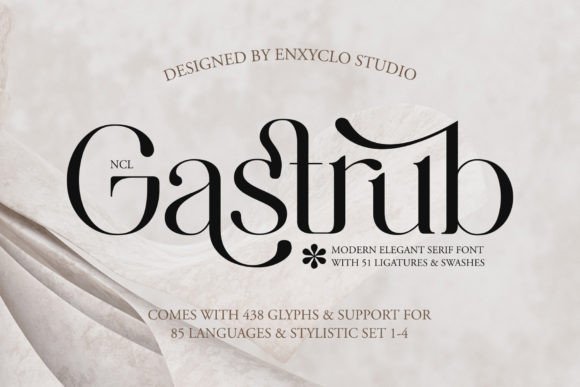
Gastrub Font: Elevate Your Creative Projects with Elegance and Sophistication
In the world of typography, a well-designed font can make all the difference in bringing your creative ideas to life. Introducing Gastrub Font, a modern elegant ligature and swashes font that is sure to become a true favorite among designers and creative enthusiasts alike. Masterfully designed to elevate your projects to the highest level, Gastrub Font is perfect for a wide range of applications, from weddings and headlines to billboards and branding.
Key Features of Gastrub Font
- Modern Elegant Design: Gastrub Font boasts a sleek and sophisticated design that is sure to impress. Its elegant lines and curves make it perfect for projects that require a touch of luxury and refinement.
- Ligatures and Swashes: This font features beautiful ligatures and swashes that add a touch of elegance to any project. With Gastrub Font, you can create stunning headlines, titles, and logos that stand out from the rest.
- Versatile: Whether you’re working on a wedding invitation, a billboard, or a website, Gastrub Font is the perfect choice. Its versatility makes it suitable for a wide range of applications and projects.
10 Creative Ways to Use Gastrub Font
- Wedding Invitations: Create stunning wedding invitations that set the tone for the big day. Gastrub Font’s elegant design and ligatures make it perfect for wedding stationery.
- Headlines and Titles: Use Gastrub Font to create eye-catching headlines and titles for your blog posts, articles, and website content.
- Billboards and Posters: Make a statement with Gastrub Font on billboards and posters. Its bold and elegant design is sure to grab attention.
- Magazine and Newspaper Articles: Add a touch of sophistication to your magazine and newspaper articles with Gastrub Font.
- Website Design: Use Gastrub Font to create a stunning website that reflects your brand’s elegance and sophistication.
- Branding and Logos: Create a memorable brand identity with Gastrub Font. Its unique design and ligatures make it perfect for logos and branding materials.
- Social Media Graphics: Elevate your social media graphics with Gastrub Font. Create stunning Facebook and Twitter headers, Instagram stories, and more.
- Packaging Design: Use Gastrub Font to create eye-catching packaging design that stands out on store shelves.
- Advertising: Create effective ads with Gastrub Font. Its elegant design and ligatures make it perfect for print and digital ads.
- Signage: Use Gastrub Font to create stunning signage that grabs attention. Its bold and elegant design makes it perfect for store signs, banners, and more.
Why Choose Gastrub Font?
Gastrub Font offers a range of benefits that make it an excellent choice for designers and creative enthusiasts. Here are just a few reasons why:
- Elegant Design: Gastrub Font’s modern elegant design makes it perfect for projects that require a touch of sophistication and luxury.
- Versatility: This font is versatile and can be used for a wide range of applications and projects.
- High-Quality: This font is designed to deliver high-quality results, even at large point sizes.
Tips and Tricks for Using Gastrub Font
Here are a few tips and tricks to help you get the most out of Gastrub Font:
- Experiment with Ligatures: Don’t be afraid to experiment with the ligatures and swashes in Gastrub Font. They can add a touch of elegance to any project.
- Use it in Large Point Sizes: Gastrub Font is designed to be used in large point sizes, so don’t be afraid to go big.
- Pair it with Other Fonts: Try pairing Gastrub Font with other fonts to create a unique and interesting look.
- Pay Attention to Kerning: Make sure to pay attention to kerning when using Gastrub Font. This will ensure that your text looks professional and polished.
In conclusion, Gastrub Font is a modern elegant ligature and swashes font that is sure to elevate your creative projects to the highest level. Its elegant design, versatility, and ease of use make it perfect for a wide range of applications and projects. Whether you’re a designer or a creative enthusiast, Gastrub Font is a must-have font that will help you create stunning and professional-looking projects.